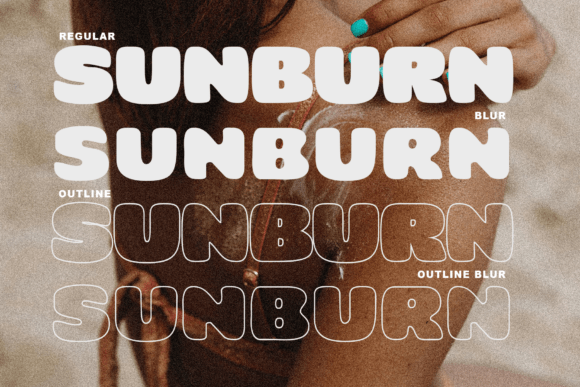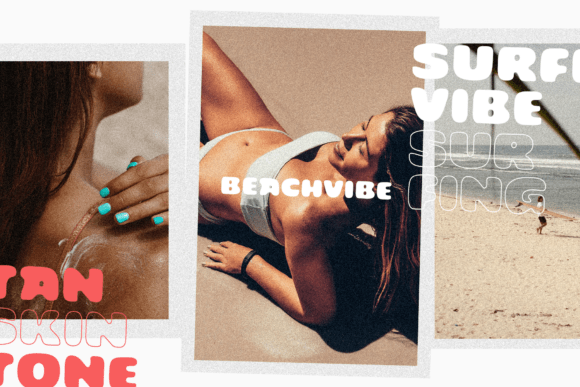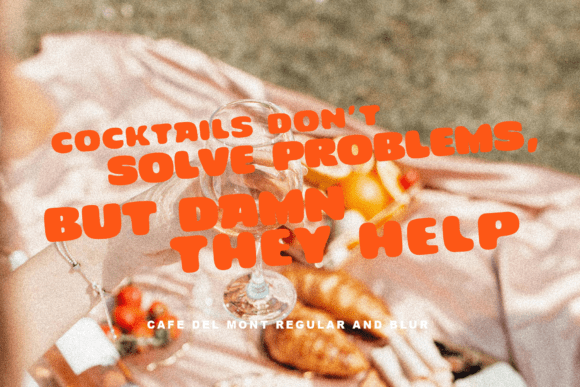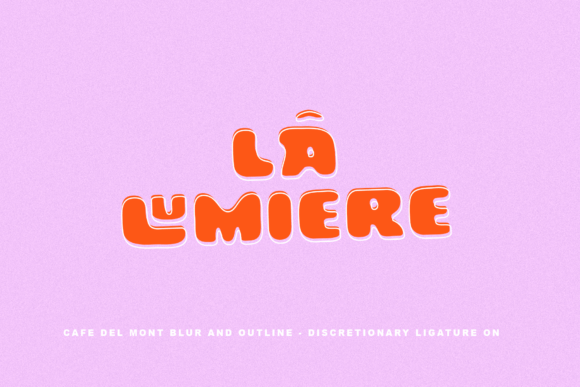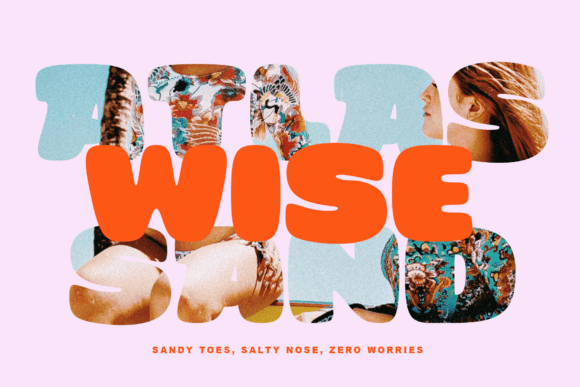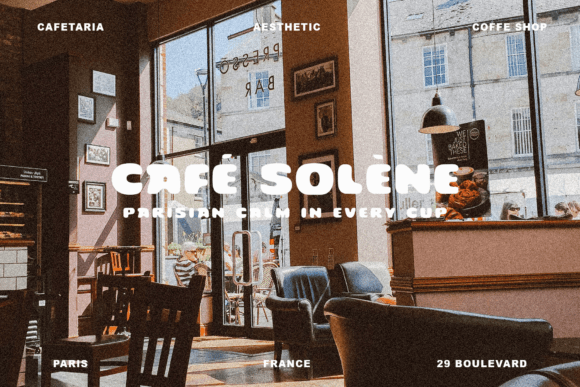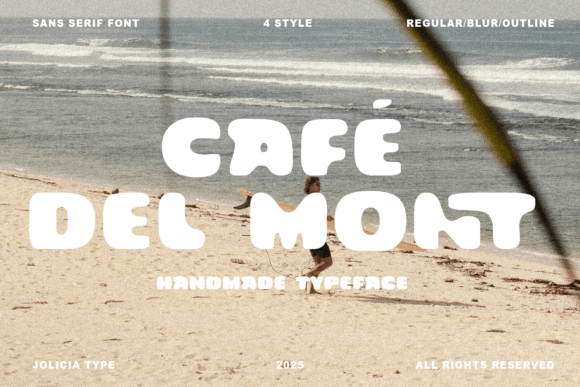
Cafe Del Mont Font: A Timeless Blend of Vintage Flair and Modern Usability
In the world of typography, few fonts manage to capture the essence of a bygone era while still feeling refreshingly modern. Cafe Del Mont Font is one such typeface that seamlessly blends vintage charm with contemporary usability, making it an ideal choice for designers and crafters looking to infuse their projects with a unique personality.
A Bold Handwritten Sans-Serif Font
Cafe Del Mont is a bold handwritten sans-serif font that exudes a warm, organic vintage vibe. Its confident strokes and naturally handwritten appearance make it perfect for designs that seek an authentic and approachable feel. Whether you’re working on a café branding project, organic product packaging, nostalgic signage, or lifestyle posters, Cafe Del Mont Font is sure to deliver a friendly yet strong character that resonates with your audience.
A Range of Styles to Suit Every Need
One of the standout features of Cafe Del Mont Font is its versatility. The font comes in a range of styles, each offering a unique personality that can be tailored to suit your design needs. From clean boldness to soft, retro blur effects, you’re spoiled for choice when it comes to finding the perfect look for your project. The outline styles add an extra layer of charm, allowing you to experiment with different visual effects and add depth to your designs.
Cafe Del Mont Font is a dream come true for designers and crafters who value authenticity and character in their work. The font’s vintage flair and modern usability make it an excellent choice for a wide range of projects, from branding and packaging to signage and posters. Whether you’re working on a commercial project or a personal craft, Cafe Del Mont Font is sure to bring a touch of warmth and personality to your designs.
The Benefits of Using Cafe Del Mont Font
- Unique personality: Cafe Del Mont Font has a distinct character that sets it apart from more generic fonts.
- Vintage charm: The font’s vintage flair adds a touch of nostalgia and warmth to your designs.
- Modern usability: Despite its vintage roots, Cafe Del Mont Font is fully optimized for modern design applications.
- Versatility: The font comes in a range of styles, making it suitable for a wide range of projects and design applications.
How to Use Cafe Del Mont Font in Your Designs
- Pair with complementary fonts: Cafe Del Mont Font works well with a range of complementary fonts, so don’t be afraid to experiment with different pairings.
- Experiment with colors: The font’s vintage flair works well with a range of colors, from earthy tones to bold brights.
- Add texture and depth: Consider adding texture and depth to your designs using Cafe Del Mont Font’s outline styles or pairing it with other design elements.
Cafe Del Mont Font is a timeless typeface that blends vintage flair with modern usability, making it an excellent choice for designers and crafters looking to add a unique personality to their projects. With its range of styles, versatility, and warm, organic vintage vibe, Cafe Del Mont Font is sure to become a go-to font in your design arsenal. So why not give it a try and see how it can elevate your designs?